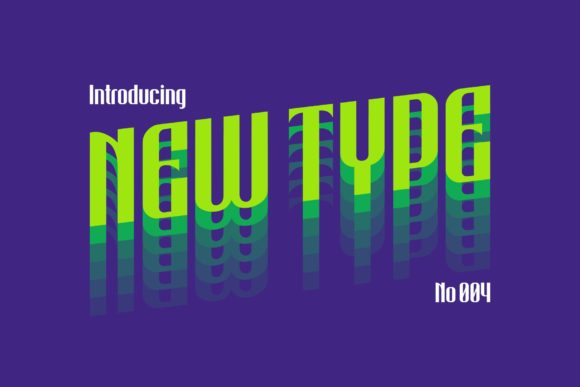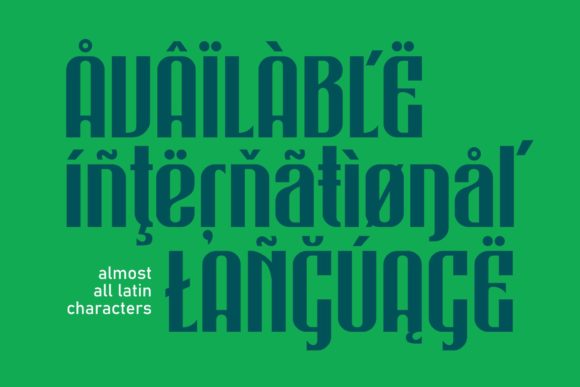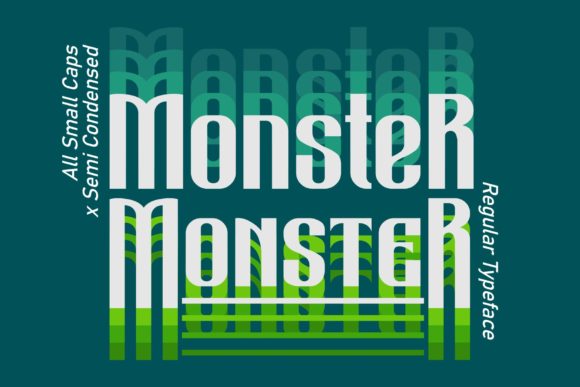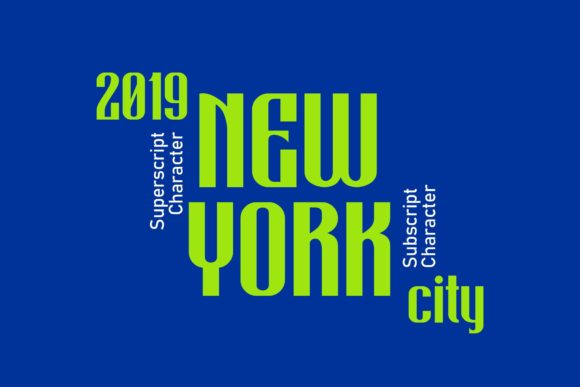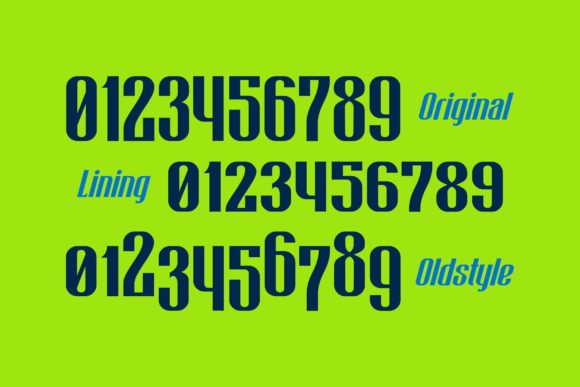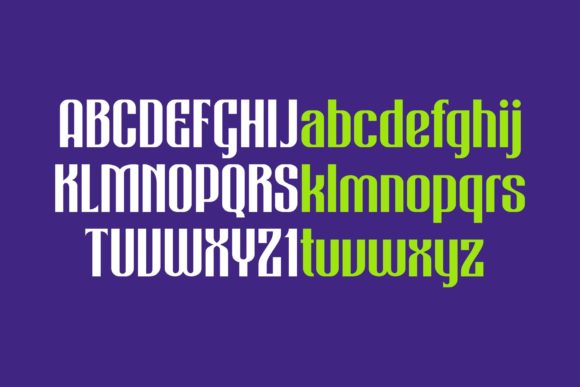
The Bigiebang Font: A Sweet and Cool Sans Serif to Elevate Your Designs
I’ll never forget the time I was working on a project for a client who wanted a fun and playful vibe, but I was struggling to find the right font to bring it all together. I scoured the internet, tried out dozens of fonts, but nothing seemed quite right. That was until I stumbled upon the Bigiebang font. **It was love at first sight!** ✨
Bigiebang is a sweet and cool sans serif font with a unique style that instantly caught my attention. Its quirky charm and modern feel make it perfect for a wide range of design projects, from branding and advertising to crafting and DIY tutorials. In this article, I’ll share my honest review of the Bigiebang font, provide a practical guide on how to use it, and explore some similar fonts you might love.
- ✨ Unique and quirky style that’s sure to make your designs stand out
- 💡 Works well for both digital and print projects
- 🎉 Great for creative hobbyists, designers, and crafters
While Bigiebang is an amazing font, there are a few things to keep in mind:
- 🤔 May not be the best choice for very formal or traditional designs
- ⚠️ Some characters may not work well in all contexts (e.g., uppercase letters with certain diacritics)
The Story Behind Bigiebang
Bigiebang was designed by a talented font creator who wanted to craft a font that was both fun and functional. Inspired by the world of crafting and DIY tutorials, Bigiebang is the perfect blend of quirky charm and modern style. Whether you’re a designer, crafter, or creative hobbyist, Bigiebang is sure to bring a smile to your face and elevate your designs.
| Font Name | Bigiebang Font |
| Is Bigiebang suitable for body text? | While Bigiebang is highly legible, it’s best suited for headlines, titles, and short paragraphs. For longer body text, you may want to choose a more traditional font. |